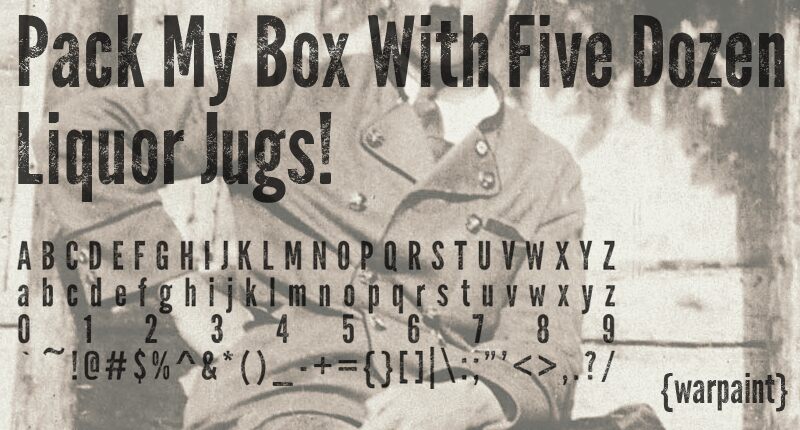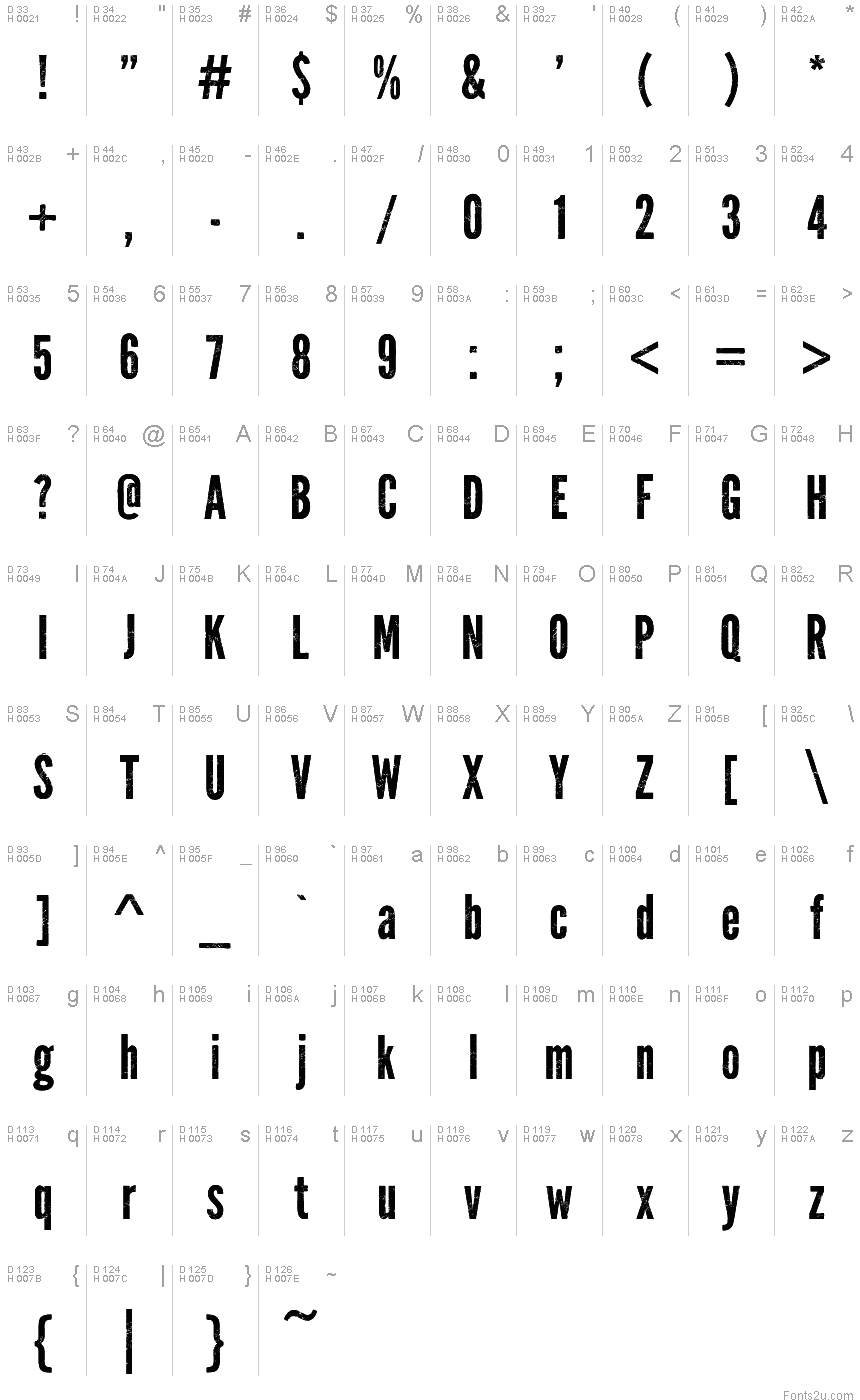
Warpaint
Warpaint inspired by 1930s depression era U.S. newspapers. The font based on League Gothic by Morris Fuller Benton in 1903.
Warpaint inspired by 1930s depression era U.S. newspapers. Designed by Chepi in 2013. The font based on League Gothic by Morris Fuller Benton in 1903.